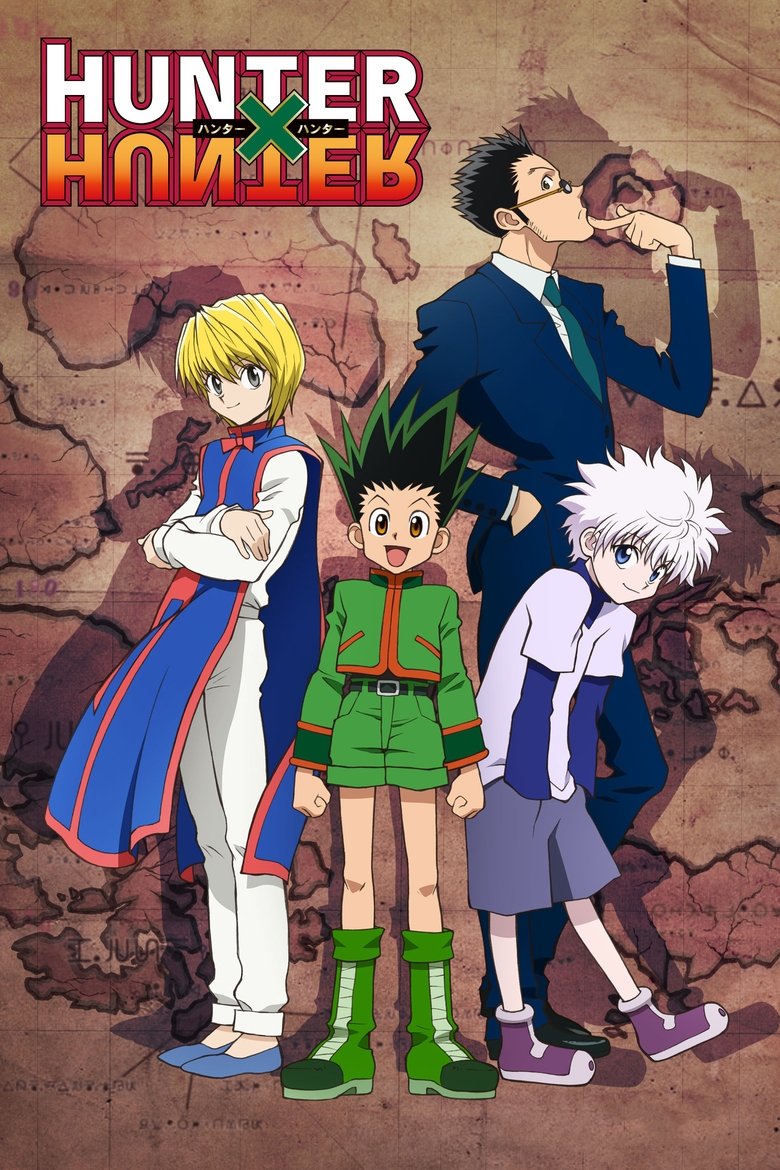
About the Hunter x Hunter font
Hunter x Hunter uses a bold, blocky display. Bungee recreates that same adventurous, arcade-bright punch.
What font is used in the Hunter x Hunter logo?+
The original Hunter x Hunter logo uses custom lettering. This generator recreates the look with Bungee — a free, open-license font you can style and download.